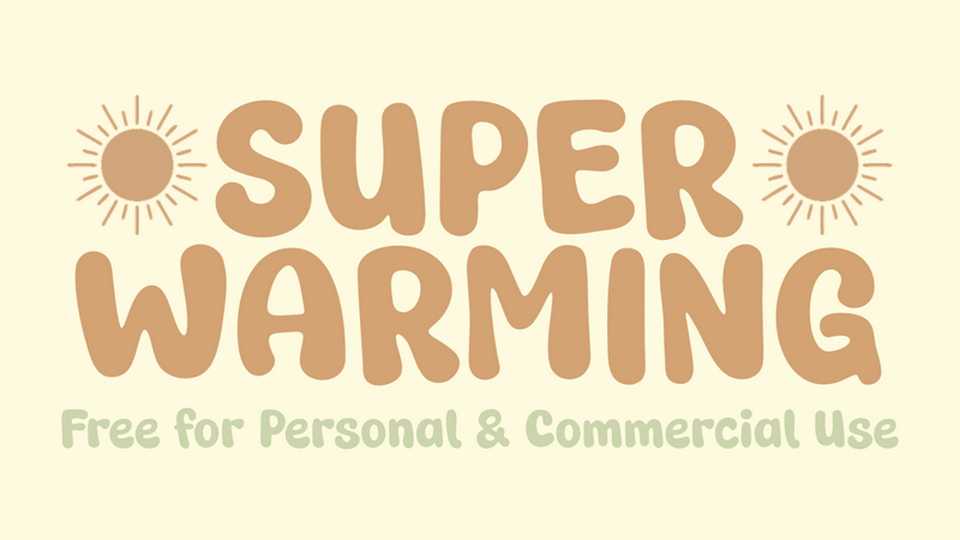
Download Super Warming font, a soft and inviting display typeface inspired by comfort, positivity, and sunny days. Its rounded forms and smooth curves create a welcoming atmosphere